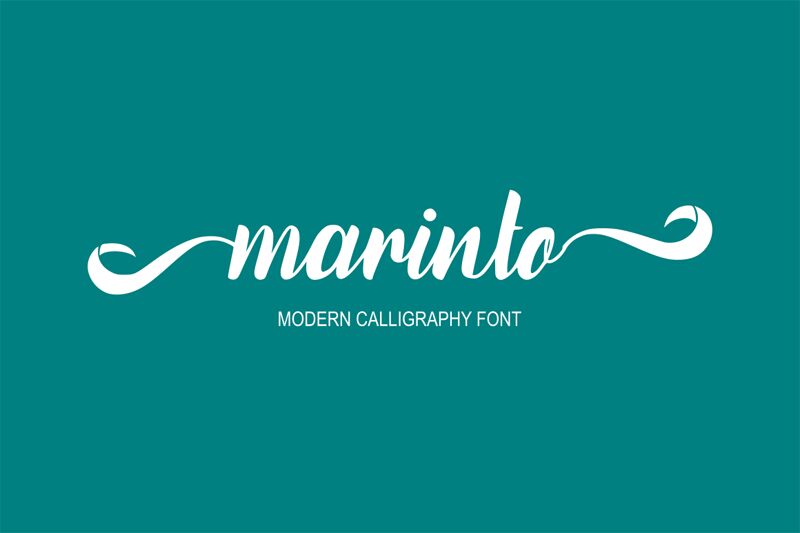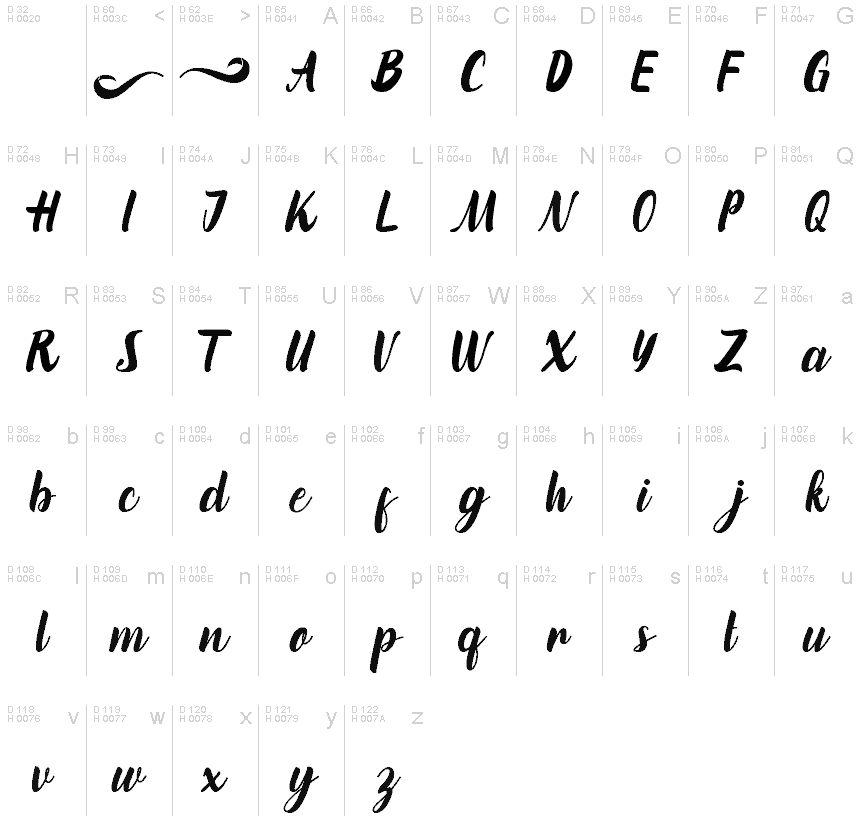
marinto
Marinto is a captivating brush font that exudes a bold, dynamic energy. Its fluid, expressive strokes create a sense of movement and vibrancy, making it an ideal choice for headings, logos, and display text. The font's organic, handwritten aesthetic lends itself beautifully to a wide range of design applications, from modern branding to rustic, artisanal aesthetics.
Marinto's versatility allows it to seamlessly transition between contemporary and vintage-inspired designs, making it a versatile and valuable addition to any designer's toolkit.